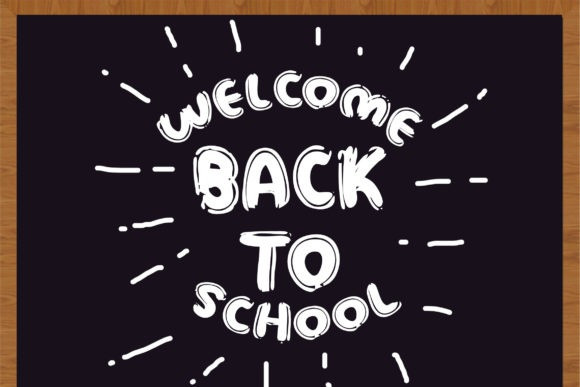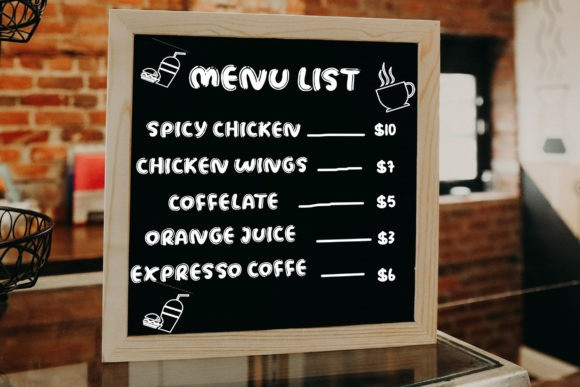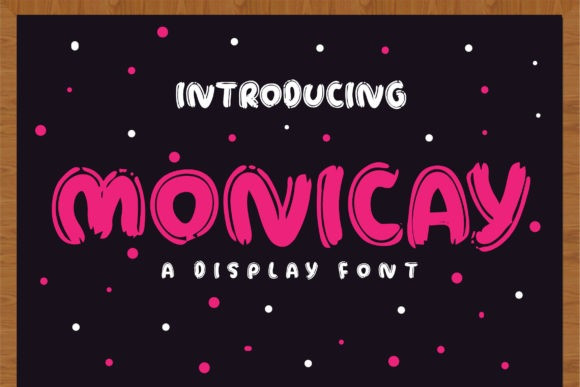
Monicay Font
Monicay Font is a cool and bold display font. This font is suitable for designs such as t-shirts, sportswear, logos, advertisements, clothing, and more.